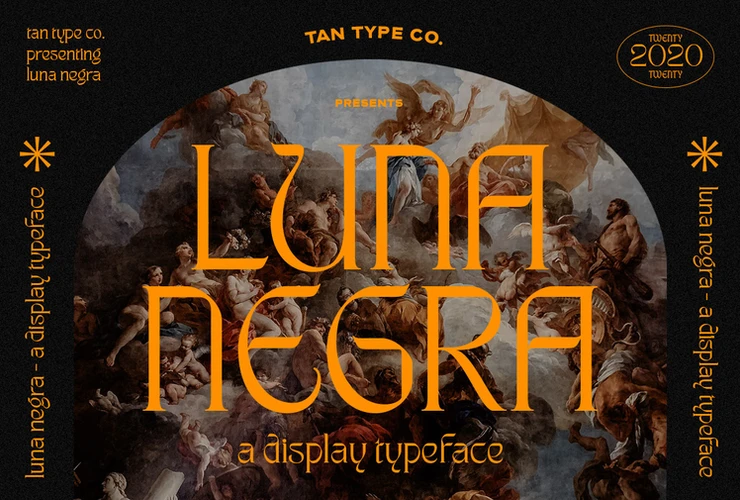
About TAN LUNA NEGRA
TAN – LUNA NEGRA is a contemporary take on blackletter. A hybrid of blackletter and serif, it retains the elegance and style. Ready to be use in any project you have in mind!(.otf/.ttf/.woff/.woff2)Multilingual SupportFree future update(s)customer support, please contact: TanType Co. through their Creative Market shop